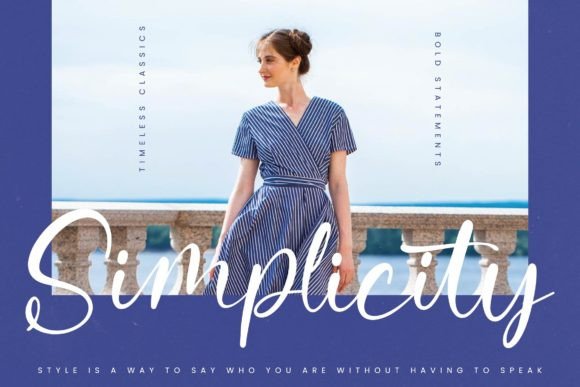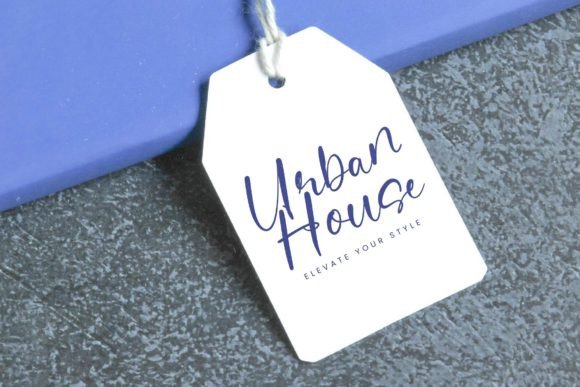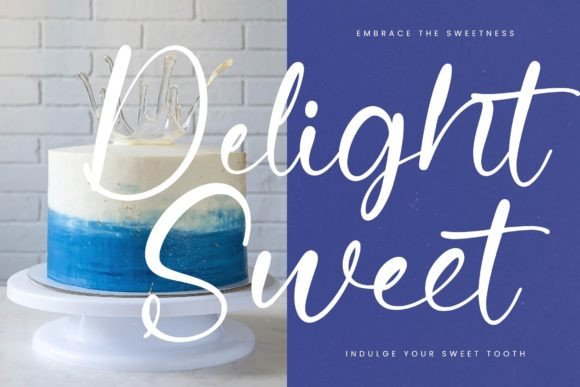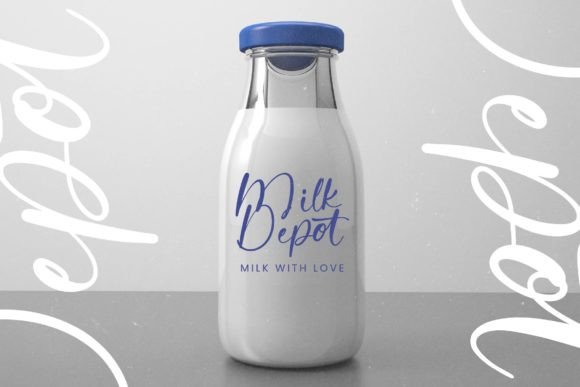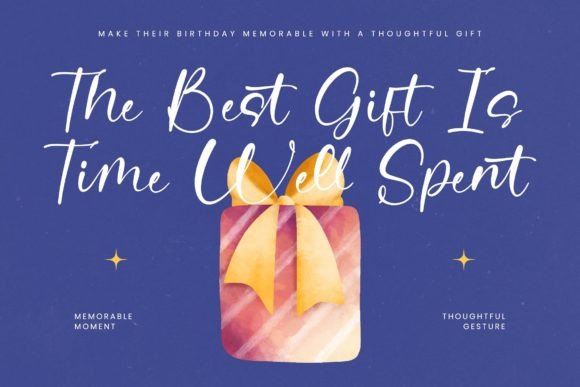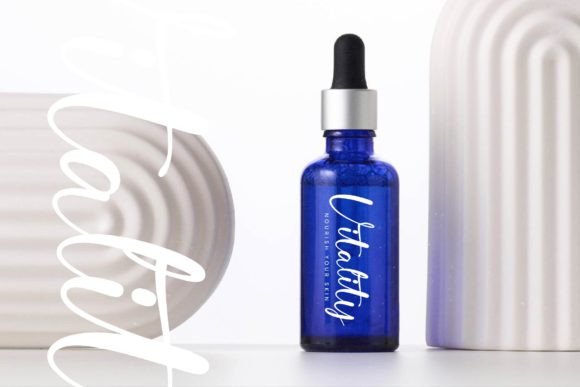
Introduction to Festive Partys Font
As a designer, there’s nothing quite like the thrill of planning a creative project, from brainstorming ideas to bringing them to life. But sometimes, all it takes is the perfect font to elevate an event from ordinary to extraordinary. That’s where the Festive Partys Font comes in – a lively and playful font that adds a splash of fun to any party, celebration, or gathering.
| 👤 Author | Letterena Studios |
Imagine you’re planning a birthday party, and you want to create an eye-catching invitation that sets the tone for the festivities. Or, picture yourself designing decorations for a holiday party, and you need a font that exudes warmth and cheer. That’s where the Festive Partys Font shines, offering a high-quality, free download that’s perfect for any design project.
With its quirky, freestyle style and transparent background, the Festive Partys Font is a valuable resource for designers looking to add a bit of festive flair to their work. Whether you’re working on a personal project or a commercial design, this font is sure to bring a smile to your clients’ faces and make their events truly unforgettable.
Key Features of Festive Partys Font
- Unique characteristics: Ornate, festive, and playful design elements, perfect for holiday-themed projects and celebrations
Honest Review: Festive Partys Font
I recently stumbled upon the Festive Partys Font, and I must say, it’s been a game-changer for my design projects. This free download has been a valuable addition to my design resource library, and I’m excited to share my thoughts on it.
- High-quality design: The Festive Partys Font boasts a crisp, clear font face that’s perfect for creative projects.
- Transparency: The transparent background allows for seamless integration with various design elements.
- Perfect for festive designs: As the name suggests, this font is ideal for projects that require a touch of festive flair.
- ⚠️ Limited character set: The font only includes a limited set of characters, which may not be suitable for more complex design projects.
- ⚠️ Not ideal for formal designs: The festive nature of the font makes it less suitable for formal or professional designs.
Overall, I’m impressed with the Festive Partys Font. Its high quality and versatility make it a valuable addition to any designer’s toolkit. Whether you’re working on a creative project or need a design resource for a festive theme, this font is definitely worth checking out.
The Festive Partys Font is ideal for designing party invitations, event banners, and social media graphics. It’s also great for creating a festive atmosphere in your designs, such as holiday cards and gift tags.